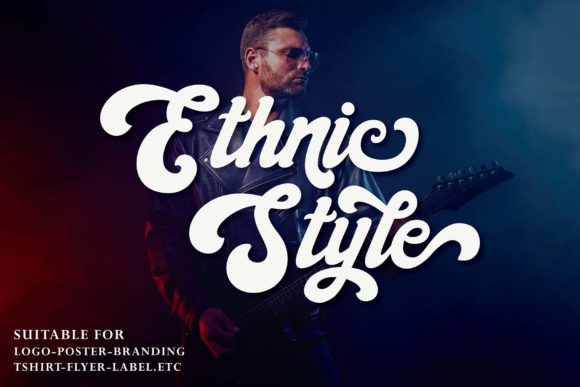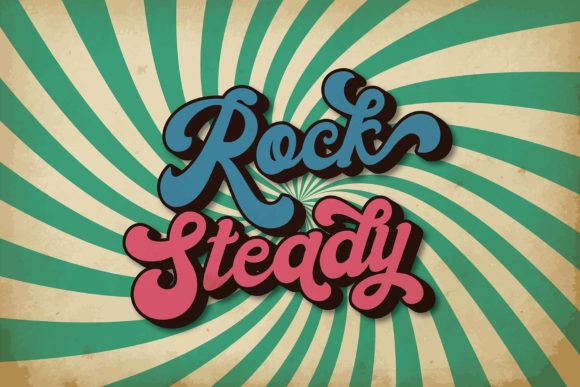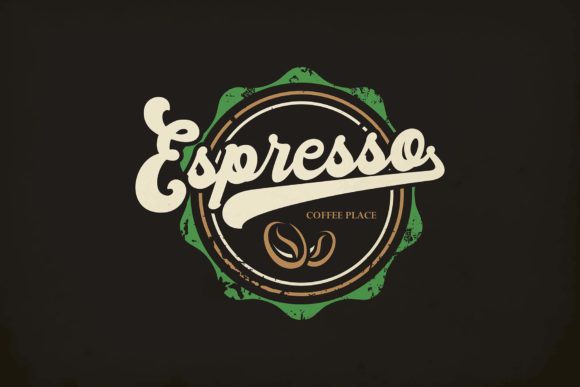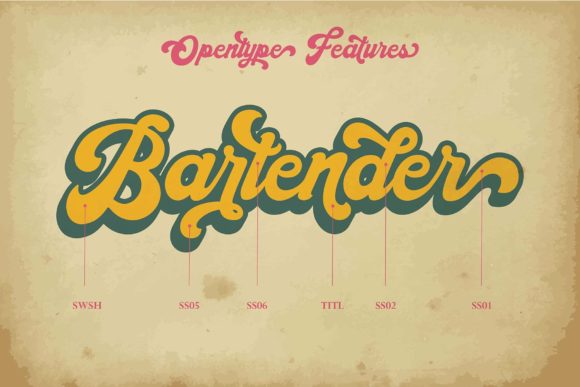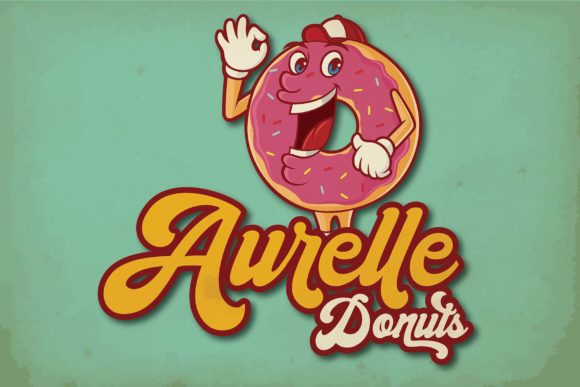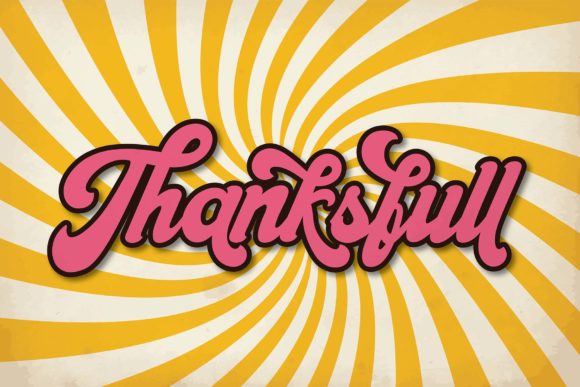
Prostteo Font
About Prostteo Font
Prostteo feels funky and fresh, making it a great vintage script for all things 70s. Get groovy with this vibrant font!